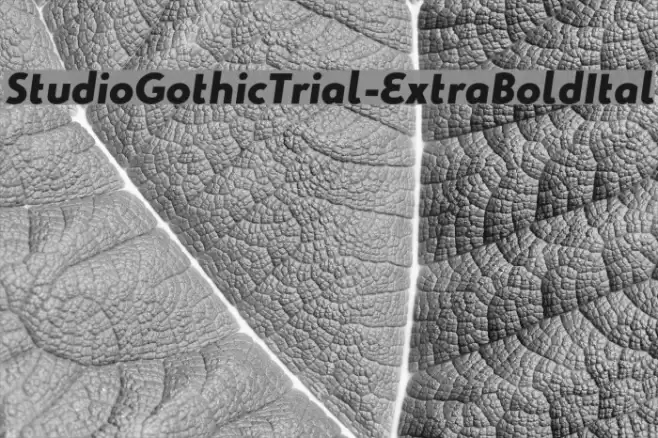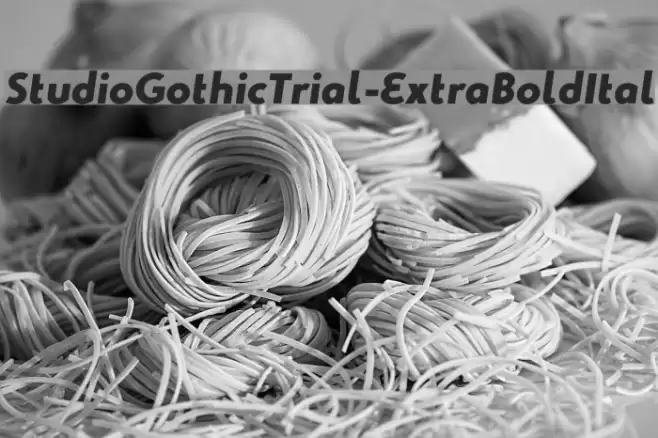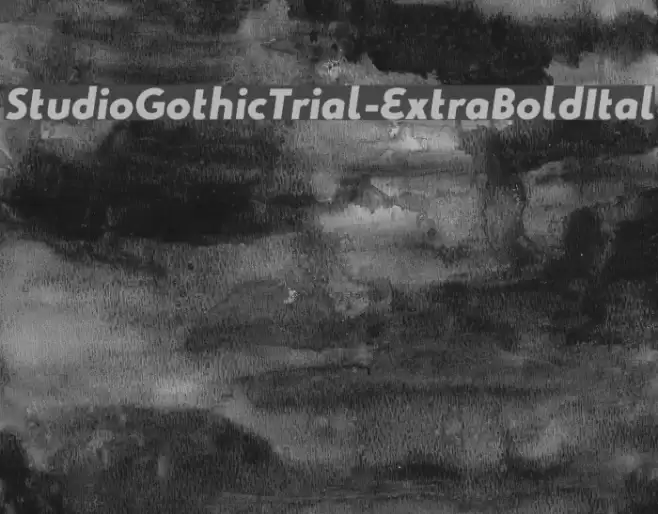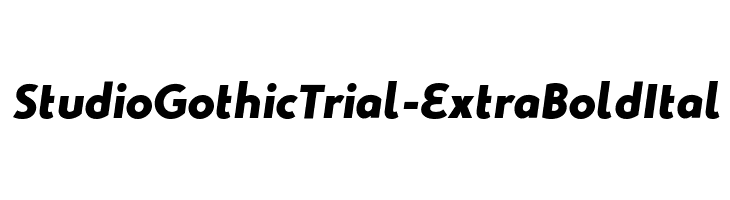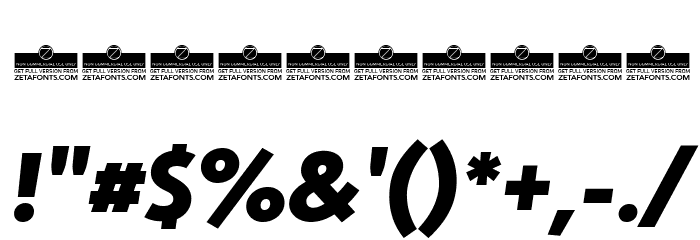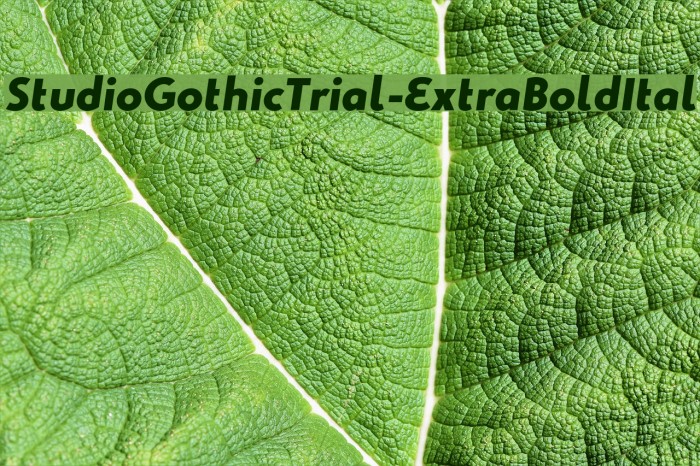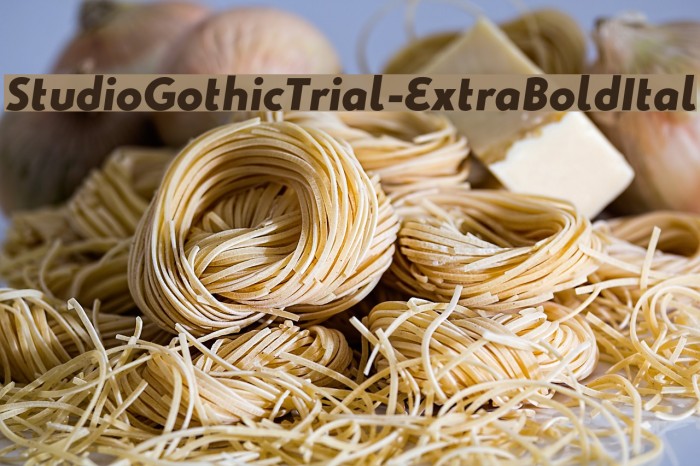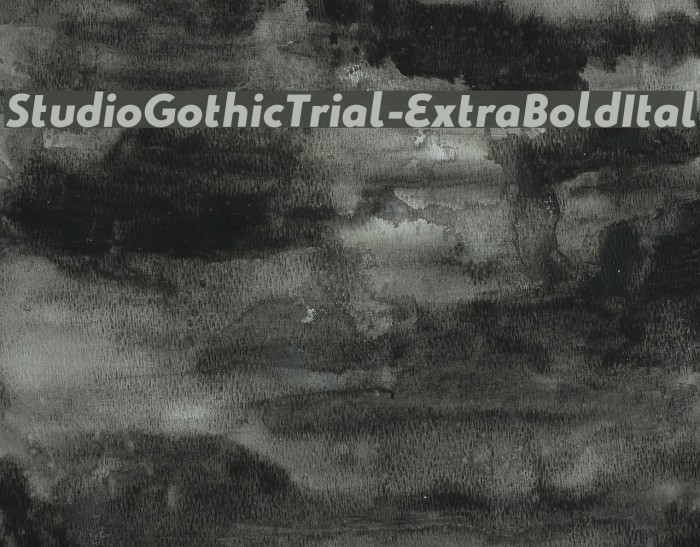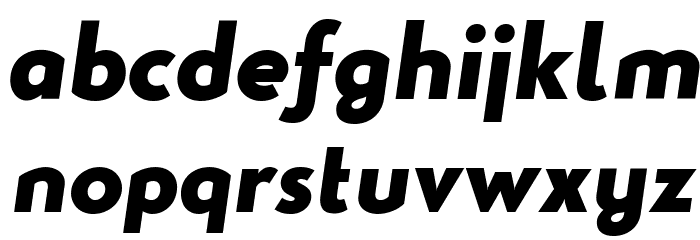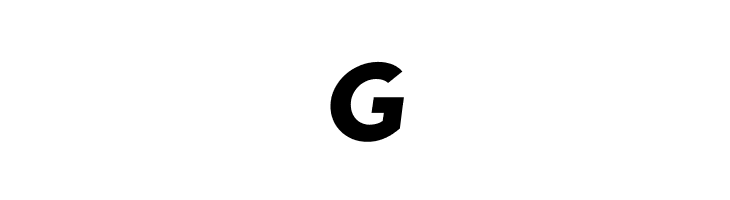
StudioGothicTrial-ExtraBoldItal Font
StudioGothicTrial-ExtraBoldItal Description
This font features a bold and dynamic style with a strong presence, characterized by its extra bold weight and italic slant. The letters are slightly condensed, giving a compact and powerful look. The strokes are consistent and smooth, with a medium contrast that enhances readability while maintaining a striking appearance. The font's modern aesthetic is suitable for making a statement, with its clean lines and contemporary feel. It includes a full set of uppercase and lowercase letters, numbers, and a variety of special characters, making it versatile for various design needs.
A bold, italic font with a modern and dynamic style from Uncategorized fonts.
- Proposed Projects: Ideal for branding, headlines, posters, and advertising where a strong visual impact is desired.